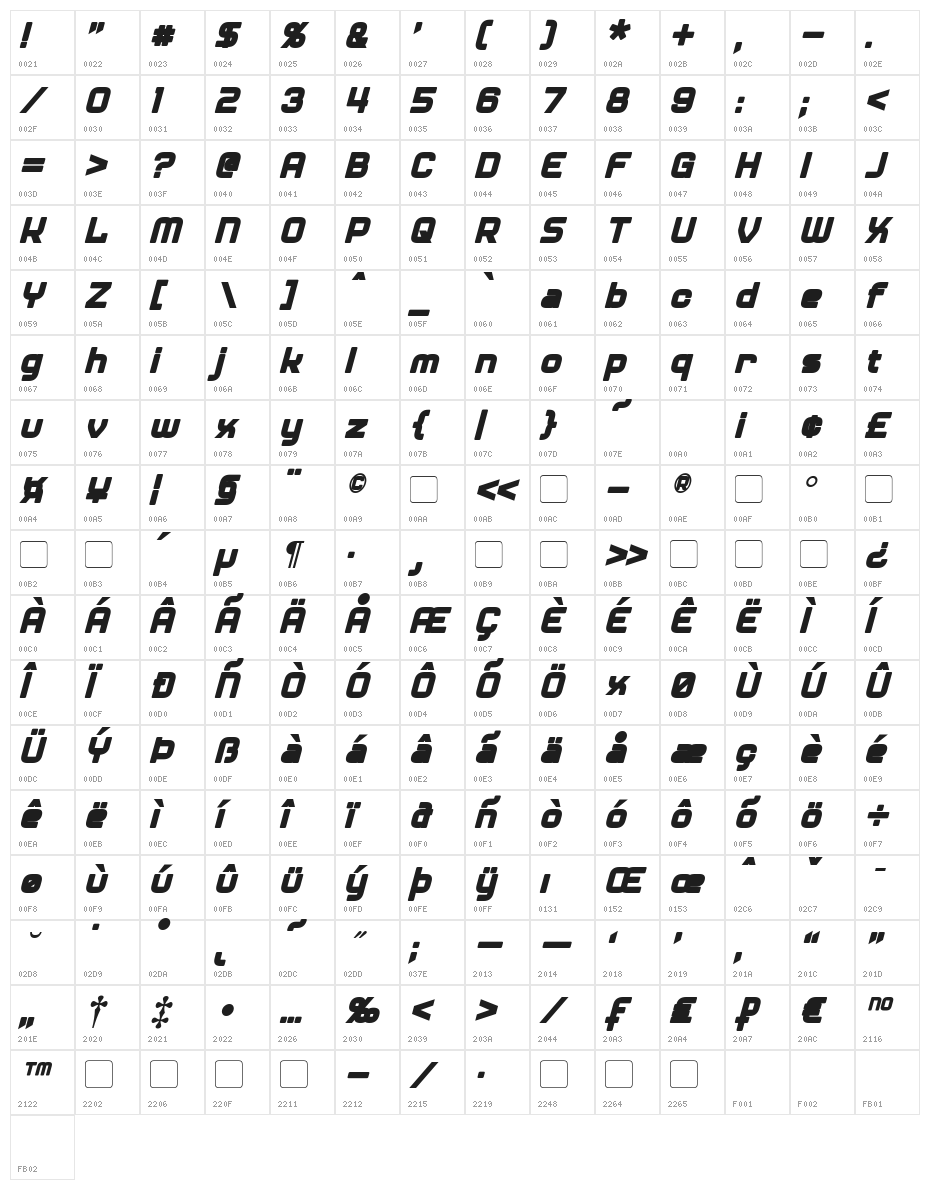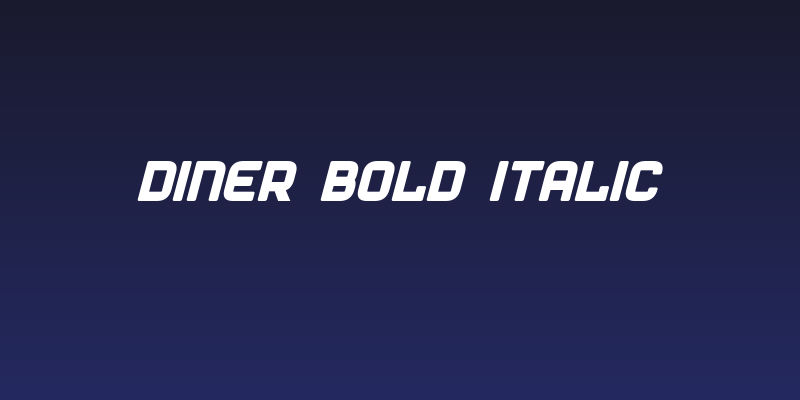
Diner Bold Italic Font
Diner Bold Italic Description
This font features a bold and italicized style, characterized by its strong, thick strokes and slightly slanted letters. The design is modern and dynamic, with a sense of movement and energy. The uppercase letters are uniform in height, while the lowercase letters maintain a consistent baseline, providing a cohesive look. The numerals are clear and bold, making them easily readable. Special characters are included, maintaining the same bold and italicized style, ensuring consistency across all glyphs. The overall appearance is sleek and contemporary, suitable for making a strong visual impact.
| Proposed Projects | Ideal for branding, advertising, posters, and any project requiring a bold, impactful typeface. |